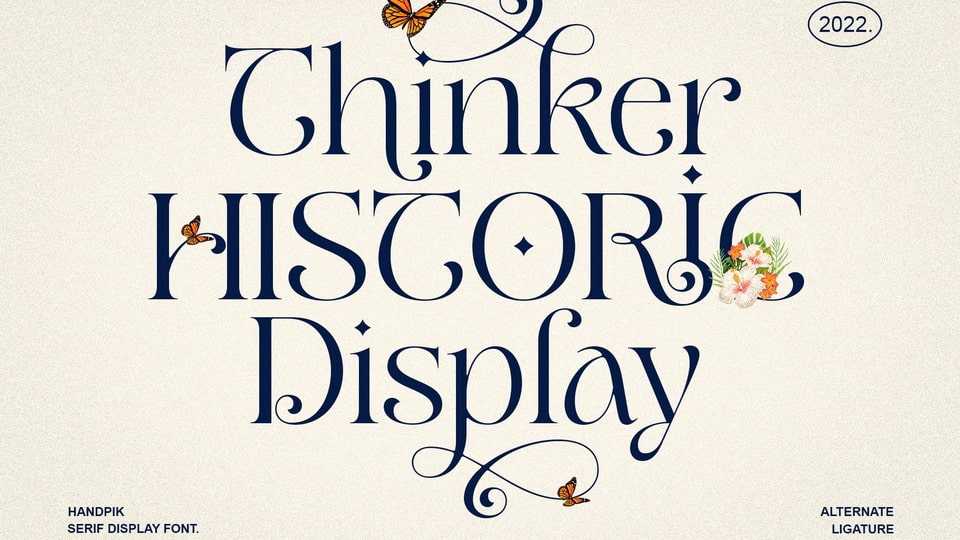
Thinker Historic Font › Fontesk – Download Grátis
Download Thinker Historic font, a sophisticated serif typeface that has a classic, feminine, and elegant style. Thinker Historic font is perfect for various projects like logos and branding, invitations, stationery, wedding designs and so on.
Designer: Handpik Design